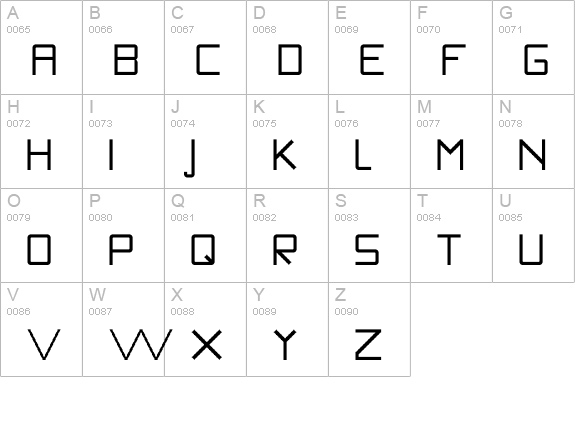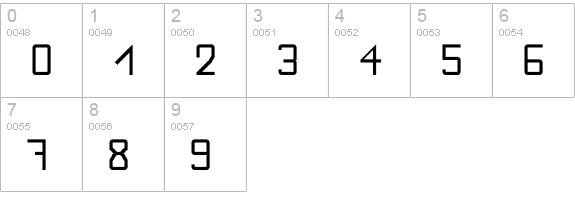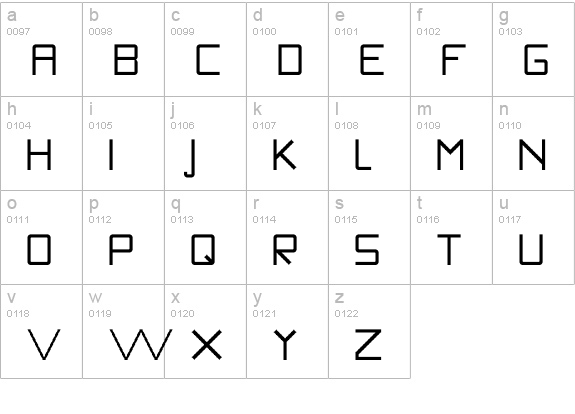
WLM Nova Sans Regular Font Details
WLM Nova Sans Regular is the standard, neutral variant in the WLM typeface family \xE2\x80\x94 well suited to general body text, paragraphs, and standard typographic work.
WLM Nova Sans Regular is a versatile and modern font that exudes elegance and sophistication. With its clean lines and balanced proportions, this font is perfect for a wide range of design projects, from branding to editorial layouts. The letters are carefully crafted to maintain legibility at various sizes, making it an excellent choice for both print and digital applications. One of the standout features of WLM Nova Sans Regular is its wide range of weights, allowing designers to create visually dynamic compositions. From the delicate light weight to the bold and impactful black weight, this font offers a diverse range of options to suit any design need. As a bonus, WLM Nova Sans Regular is available for free download at FontsMarket.com. This means that designers can access this high-quality font without any cost, making it an ideal choice for budget-conscious projects. The ease of downloading and installing this font ensures that designers can quickly integrate it into their workflow and start creating stunning designs. Whether you're designing a logo, a website, or a poster, WLM Nova Sans Regular is a font that will elevate your project to new heights. Its timeless appeal and exceptional versatility make it a valuable asset for any designer. Don't miss out on the opportunity to enhance your designs with this free font – head over to FontsMarket.com and download WLM Nova Sans Regular today.